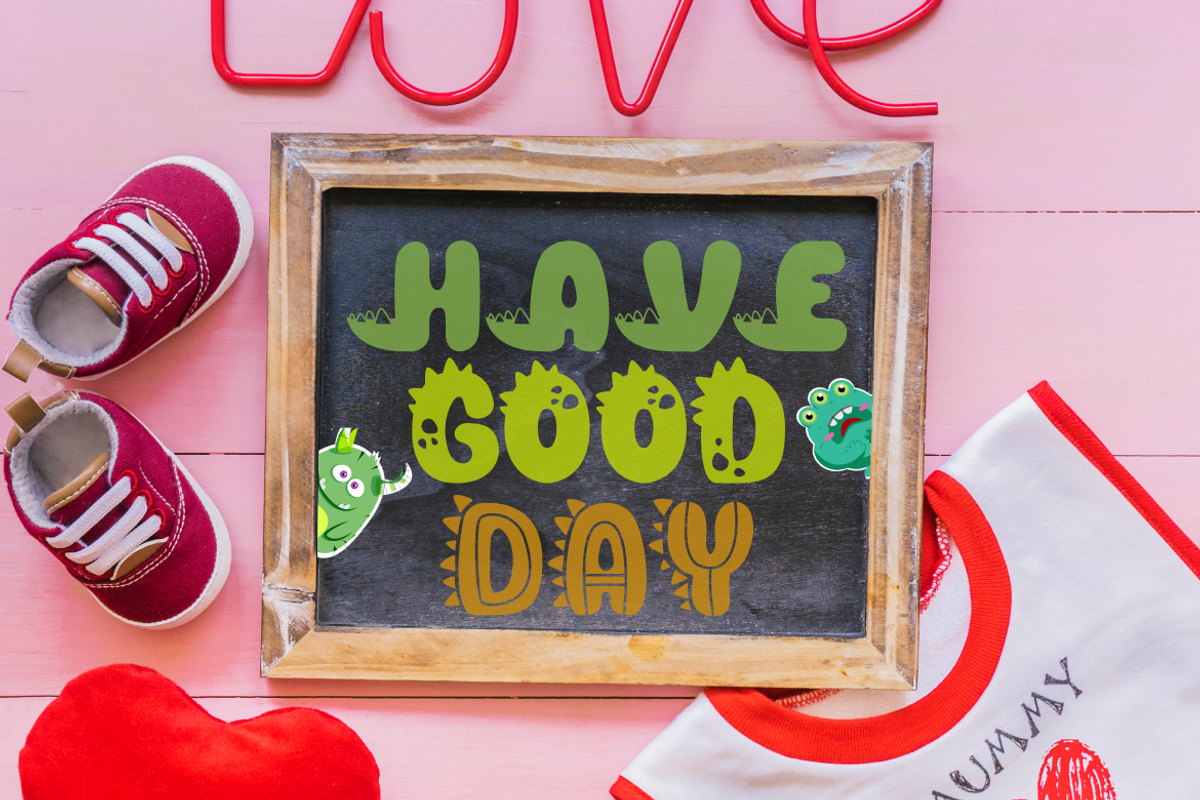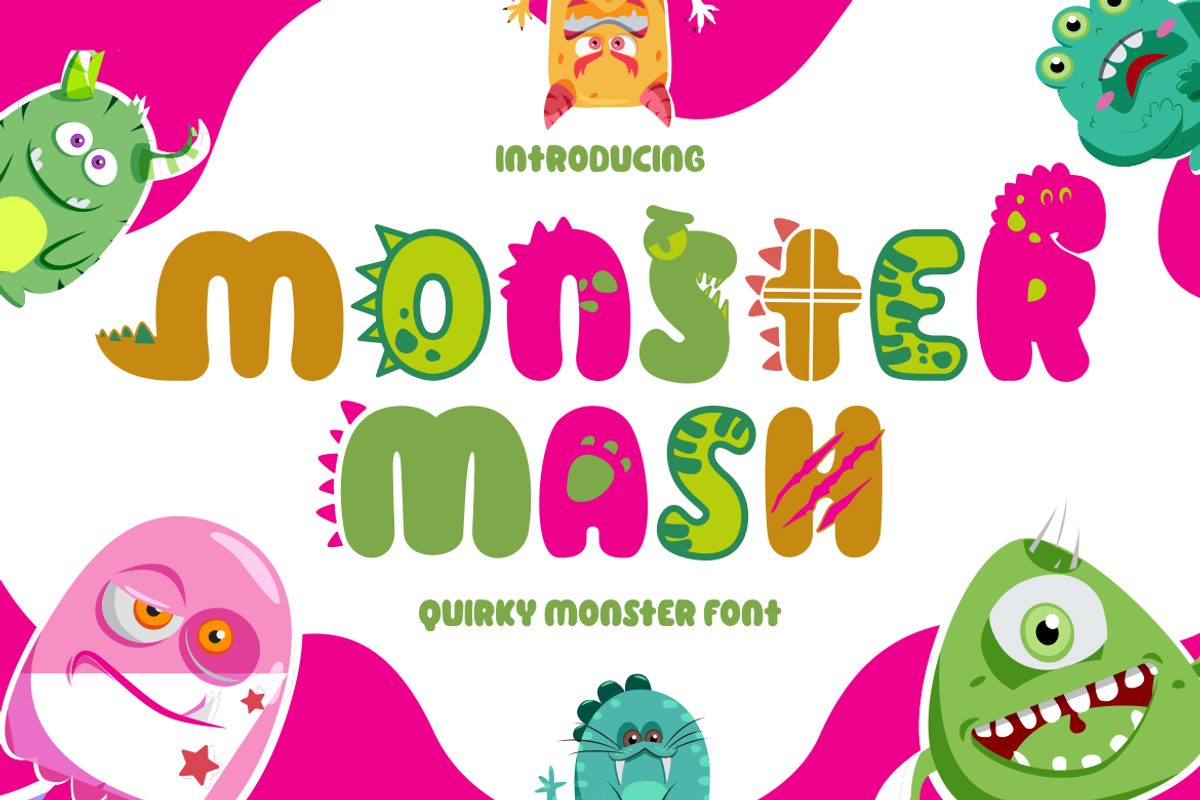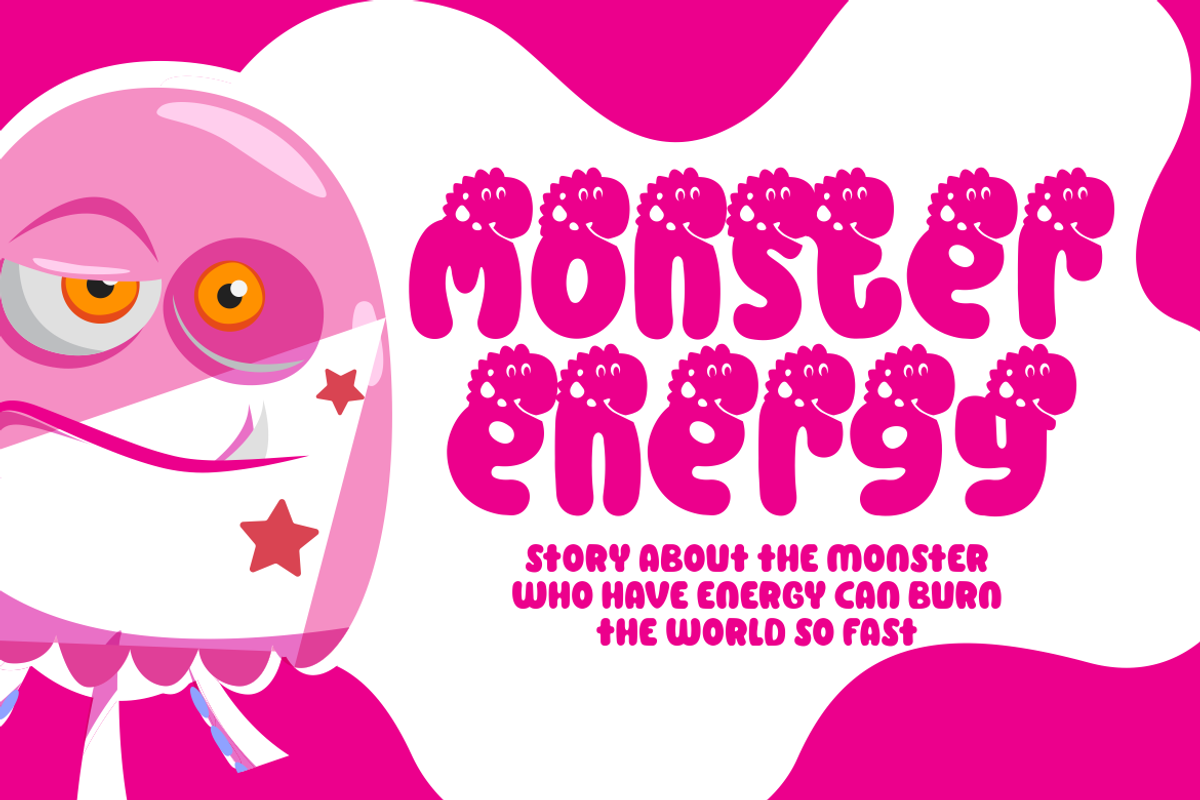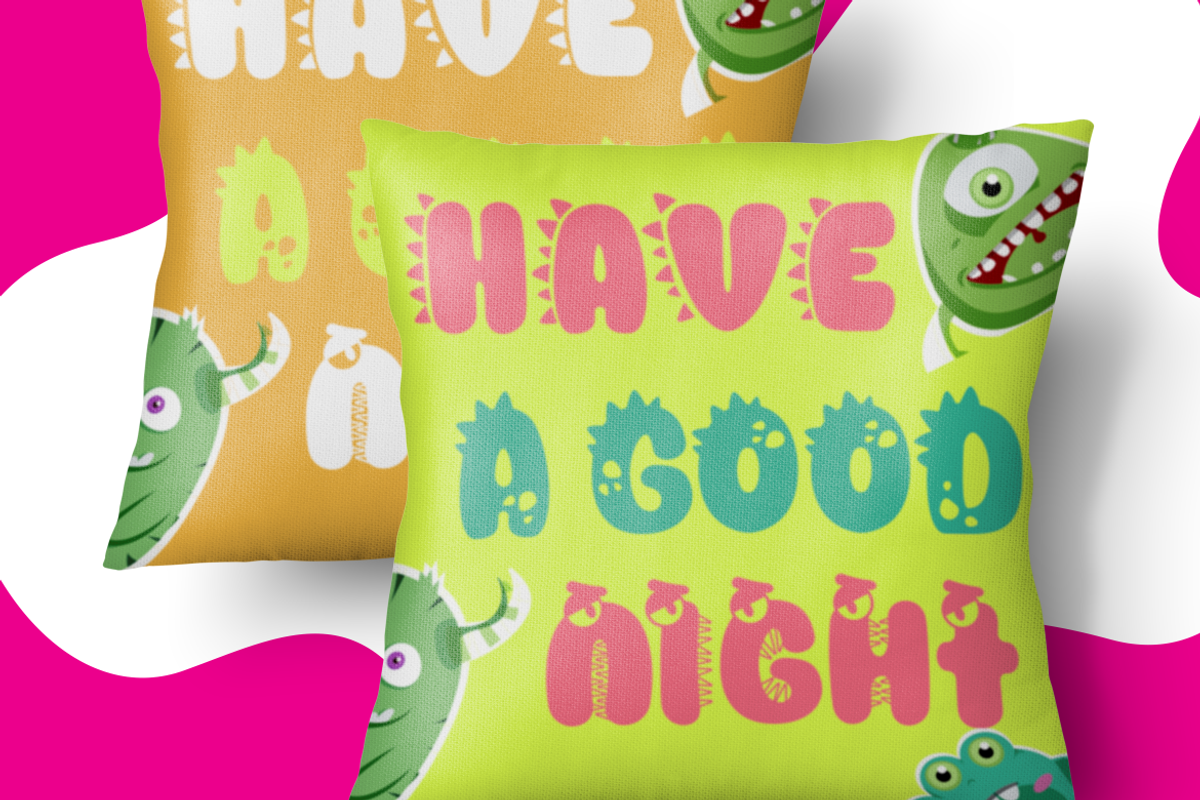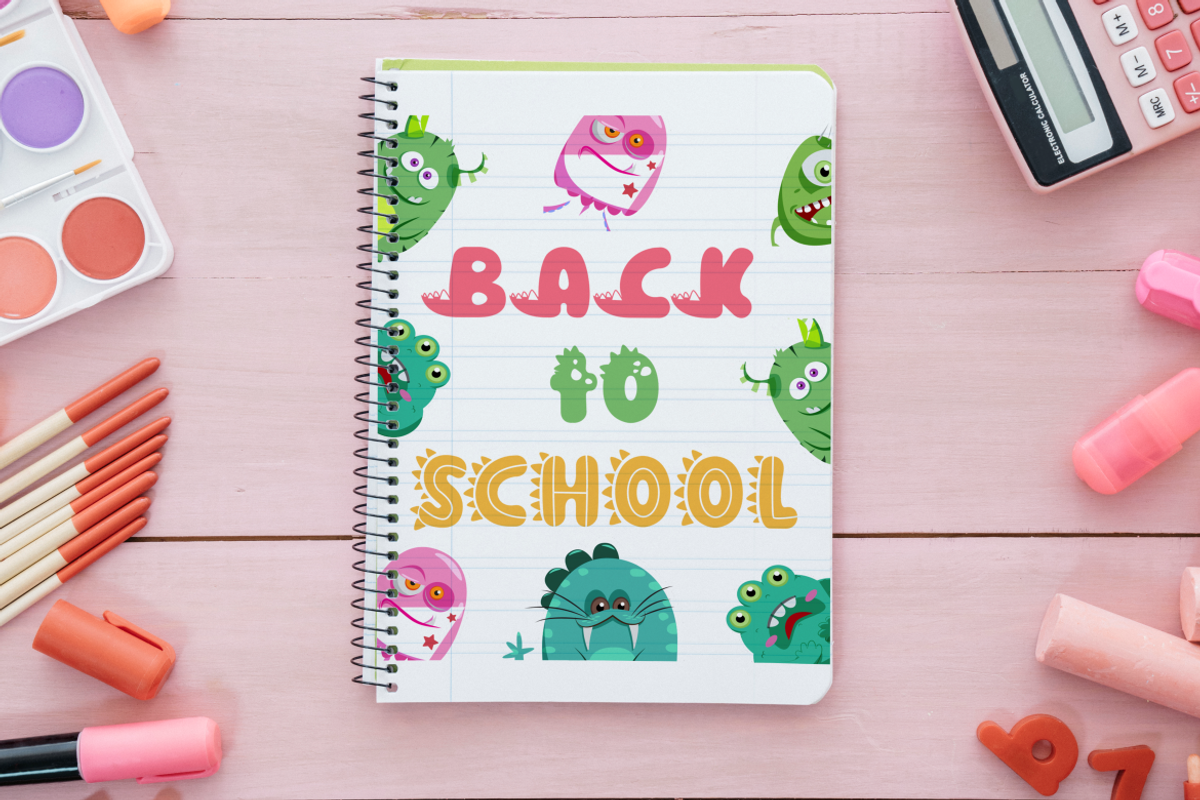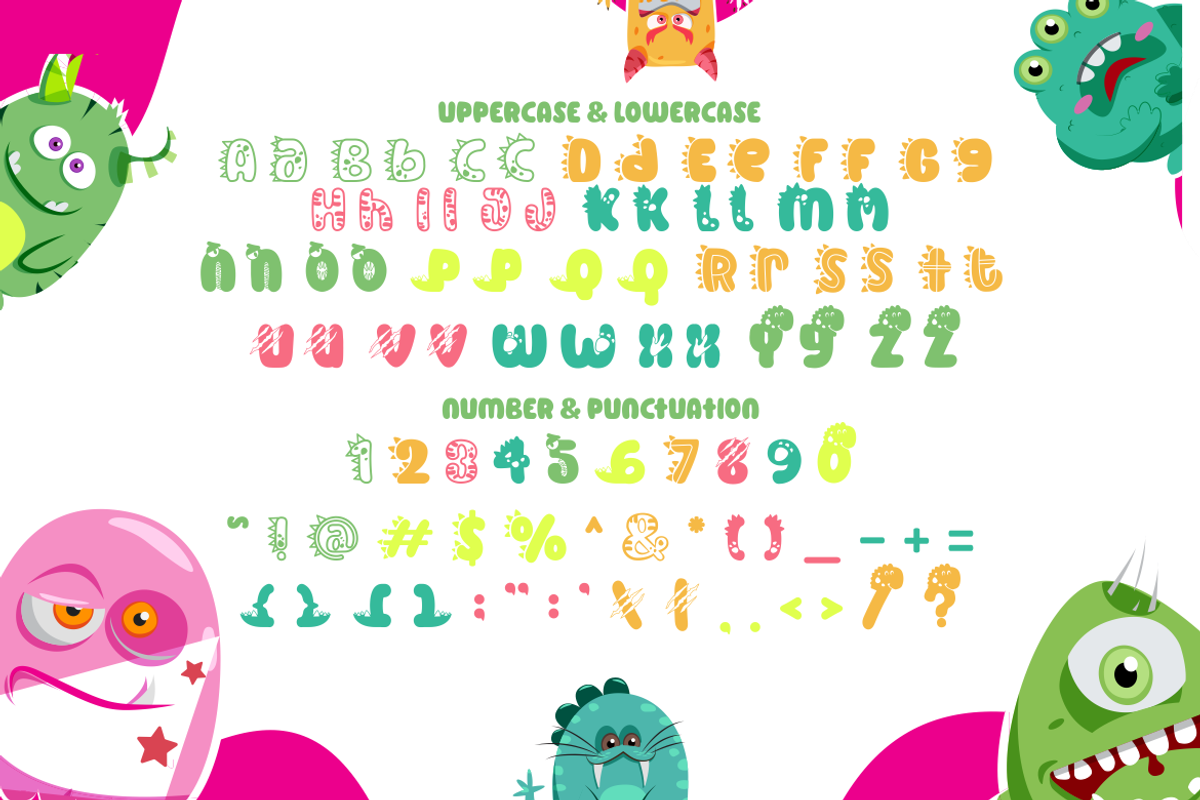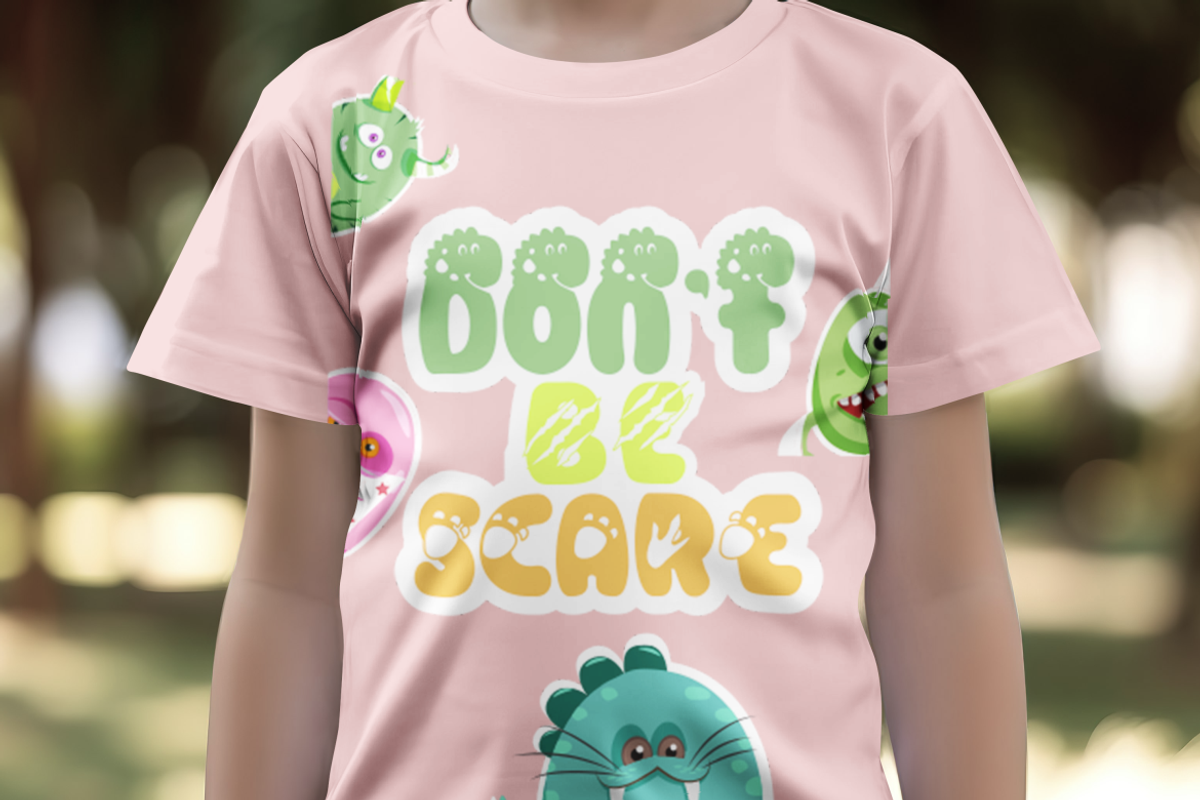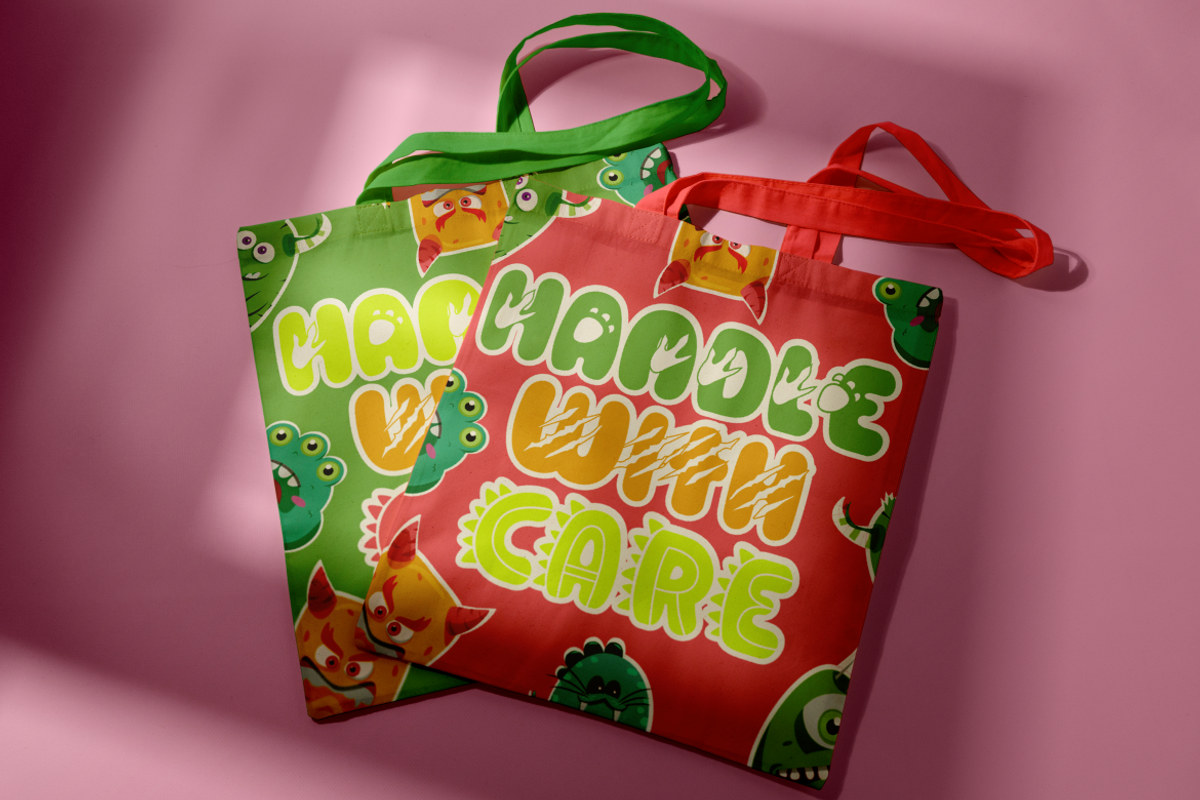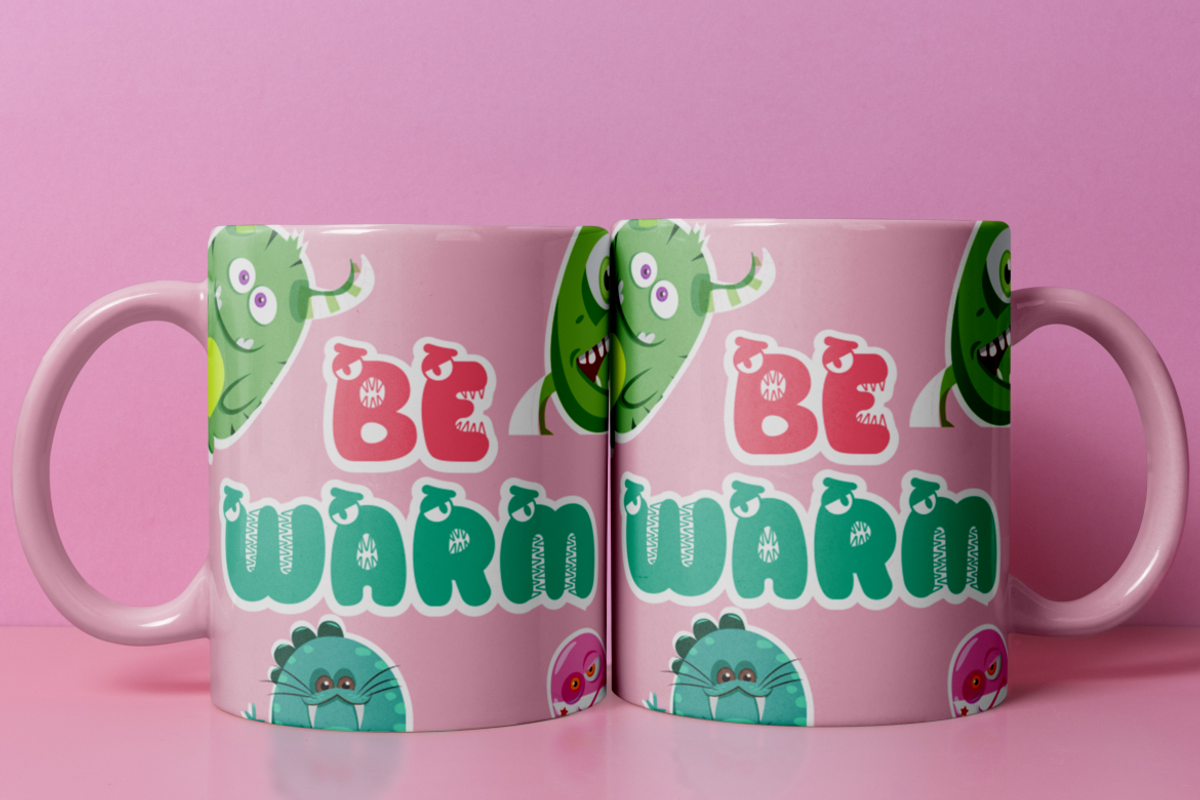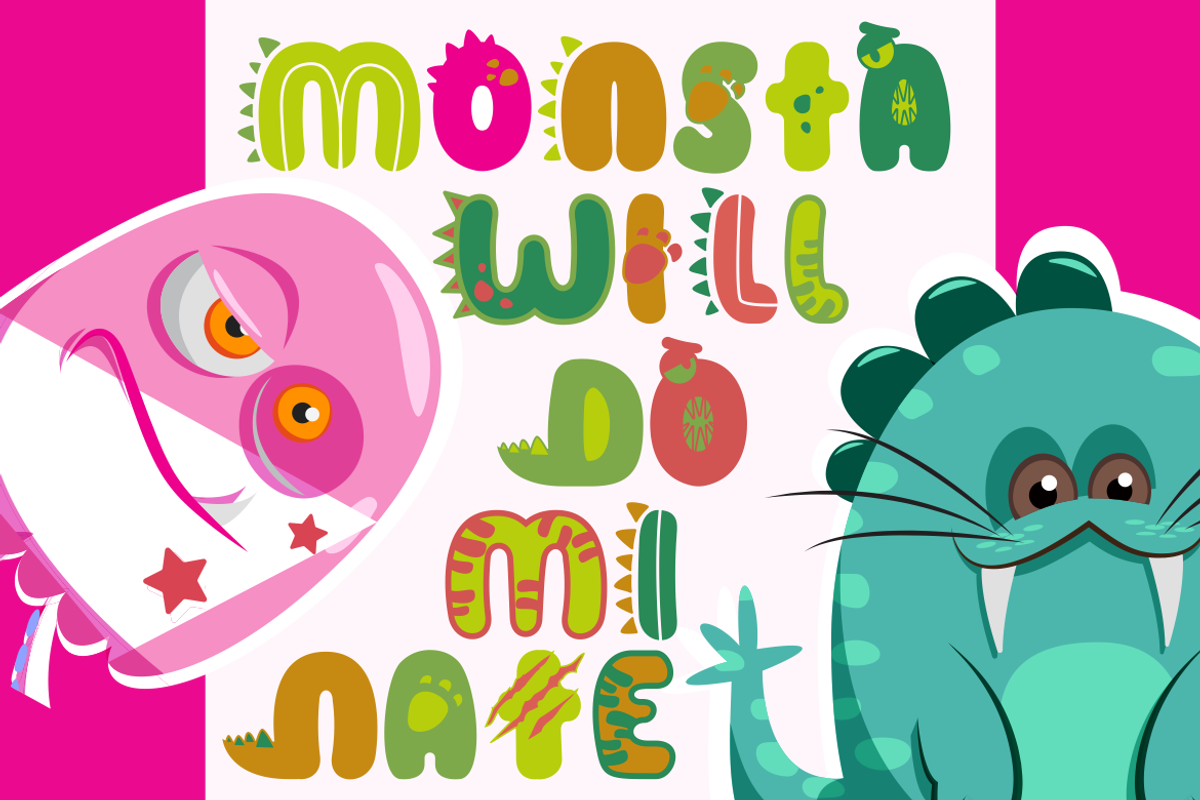
Monster Mash - Quirky Dino & Monster
Introducing “Monster Mash” - a Quirky Dino & Monster Font that is as fun and adventurous as the creatures it represents. This display font, inspired by the fascinating world of dinosaurs and monsters, is designed to add a touch of humor and personality to any project. With 11 distinct variations, each reflecting the quirky features of teeth, scales, horns, and more, Monster Mash is versatile and expressive. Crafted with care and creativity, it’s perfect for children’s themes, crafting projects, logos, branding initiatives or any design that needs a dose of whimsy.
Whether you’re creating invitations, packaging or personalized stickers – Monster Mash delivers in its uniqueness. The font files are available in both otf and ttf formats ensuring compatibility and ease of use. Every stroke embodies the essence of fun making it an excellent choice for titles in children’s books or playful branding.